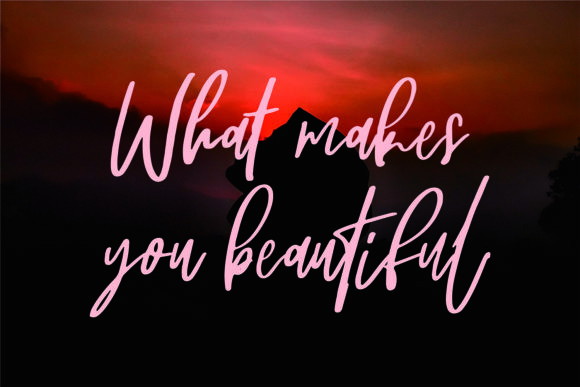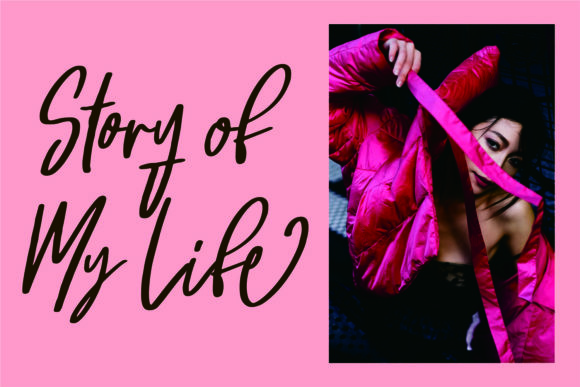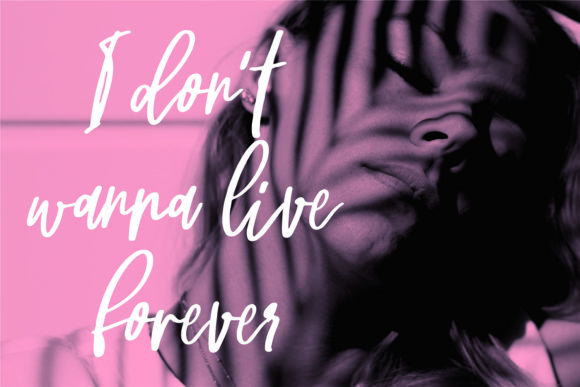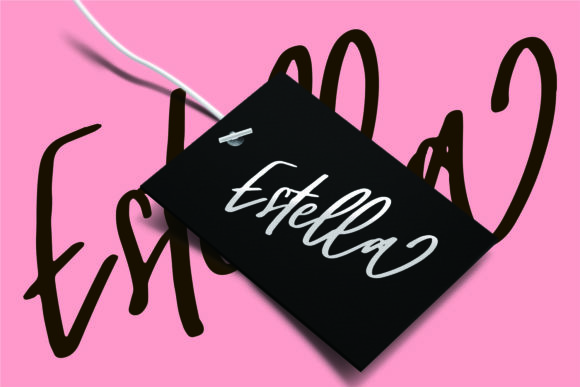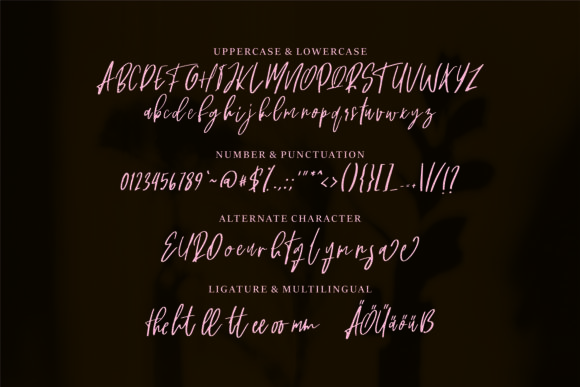
Introduction to Sherapina Font
Have you ever found yourself stuck in a creative rut, staring blankly at your computer screen, desperately searching for the perfect font to bring your design project to life? You’re not alone. As designers, we’ve all been there, pouring over font libraries, searching for that elusive combination of style and personality to make our designs truly pop. And then, one day, you stumble upon Sherapina Font – a casual and stylish handwritten font that will change the game for your next creative project.
With its unique and beautiful touch, Sherapina Font is the perfect choice for creating eye-catching logos, branding, and quotes that will leave a lasting impression on your audience. Whether you’re working on a high-quality design resource or a free download project, Sherapina Font is sure to elevate your design to the next level. Its versatility and sophistication make it an invaluable asset for designers looking to add a touch of elegance and sophistication to their work.
Key Features of Sherapina Font
- High-quality, elegant script font suitable for creative projects
- Features a transparent background, ideal for overlaying on images or videos
- Resolution-independent design, suitable for both screen and print use
- Perfect for designers and artists looking for a unique, creative font for their next project
Honest Review: Sherapina Font
I recently had the chance to work with the Sherapina Font, and I must say it’s been a delightful experience. As a designer, I’m always on the lookout for high-quality fonts that can elevate my creative projects. The Sherapina Font is a beautiful script font that’s perfect for designing anything from wedding invitations to branding materials.
- ✨ The Sherapina Font has a stunning, elegant design that’s perfect for adding a touch of sophistication to any project.
- ✨ The font is highly legible, even at smaller font sizes, making it ideal for body text or headings.
- ⚠️ The Sherapina Font doesn’t have a transparent background, which may make it difficult to use on images or backgrounds with complex textures.
- ⚠️ The font may not be suitable for use in certain design contexts, such as in small text or at very large sizes.
Overall, I’m really impressed with the Sherapina Font. It’s a high-quality design resource that’s perfect for a wide range of creative projects. If you’re looking for a beautiful, elegant font that’s easy to use, I highly recommend giving the Sherapina Font a try.
Tips for Getting the Most Out of Sherapina Font
To get the most out of Sherapina Font, use it in conjunction with a transparent background to create a visually appealing design. Experiment with different font sizes and styles to add depth and interest to your project.
Sherapina Font is ideal for creative projects such as graphic design, digital art, and typography-based designs. It’s also suitable for use in presentations, documents, and social media graphics.